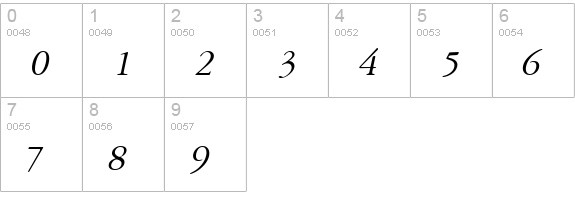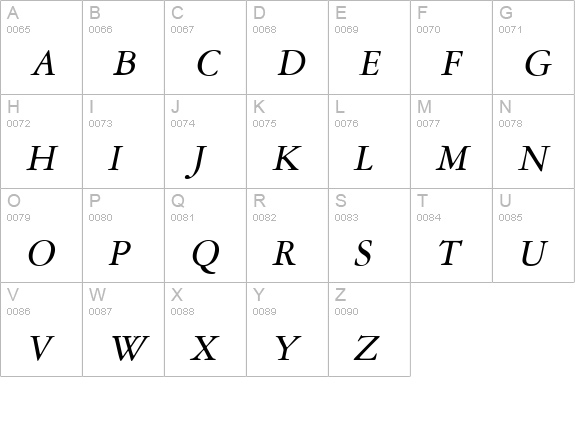
Amery Italic Font Details
Amery Italic is a distinctive, italic variant in the Amery typeface family \xE2\x80\x94 well suited to design and typography projects.
Amery Italic is a beautifully crafted font that adds elegance and sophistication to any design project. Its graceful curves and slanted angles give off a sense of modernity and style. The soft, flowing lines of Amery Italic make it perfect for adding a touch of charm to invitations, logos, or branding materials. What makes Amery Italic even more appealing is that it is completely free to download at FontsMarket.com. This means that you can enhance your projects with this stunning font without any cost. So go ahead and give your designs a unique and polished look with Amery Italic.